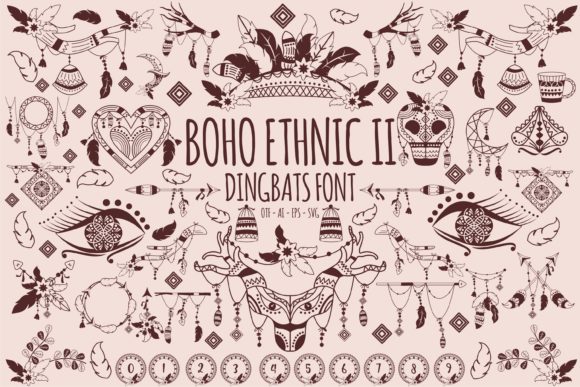
Discover the Free-Spirited Charm of Boho Ethnic II Font
I’ll never forget the design project that led me to Boho Ethnic II Font. I was working on a crafty stationery set for a client who wanted a unique, laid-back vibe. As I scrolled through font after font, nothing seemed to capture the essence of bohemian chic. That was until I stumbled upon Boho Ethnic II – a cool, hippie, and relaxed dingbats font that instantly resonated with my creative vision.
An Honest Review of Boho Ethnic II Font
- ✅ Unique, hand-crafted look that’s perfect for adding a personal touch to designs
- ✅ Extensive collection of glyphs and stylistic alternates to experiment with
- ✅ Works beautifully for a variety of projects, from letterheads and titles to stationery and more
- ✅ Easy to pair with other fonts for a cohesive look
- ⚠️ Limited suitability for body text due to its decorative nature
The Designer’s Inspiration Behind Boho Ethnic II Font
Boho Ethnic II Font was crafted with the free-spirited creative in mind. Its designer drew inspiration from the vibrant colors and eclectic patterns of global cultures, infusing the font with a unique, laid-back charm. Whether you’re working on a crafty project or a professional design, Boho Ethnic II Font is sure to add a touch of bohemian flair.
| Font Name | Boho Ethnic II Font |
| Author | edywiyonopp |
| What type of projects is Boho Ethnic II Font best suited for? | Boho Ethnic II Font is perfect for crafty projects, stationery, letterheads, titles, and any design that requires a unique, bohemian touch. |
| Is Boho Ethnic II Font suitable for body text? | Due to its decorative nature, Boho Ethnic II Font is not ideal for body text. It’s best used for titles, headings, or accents. |